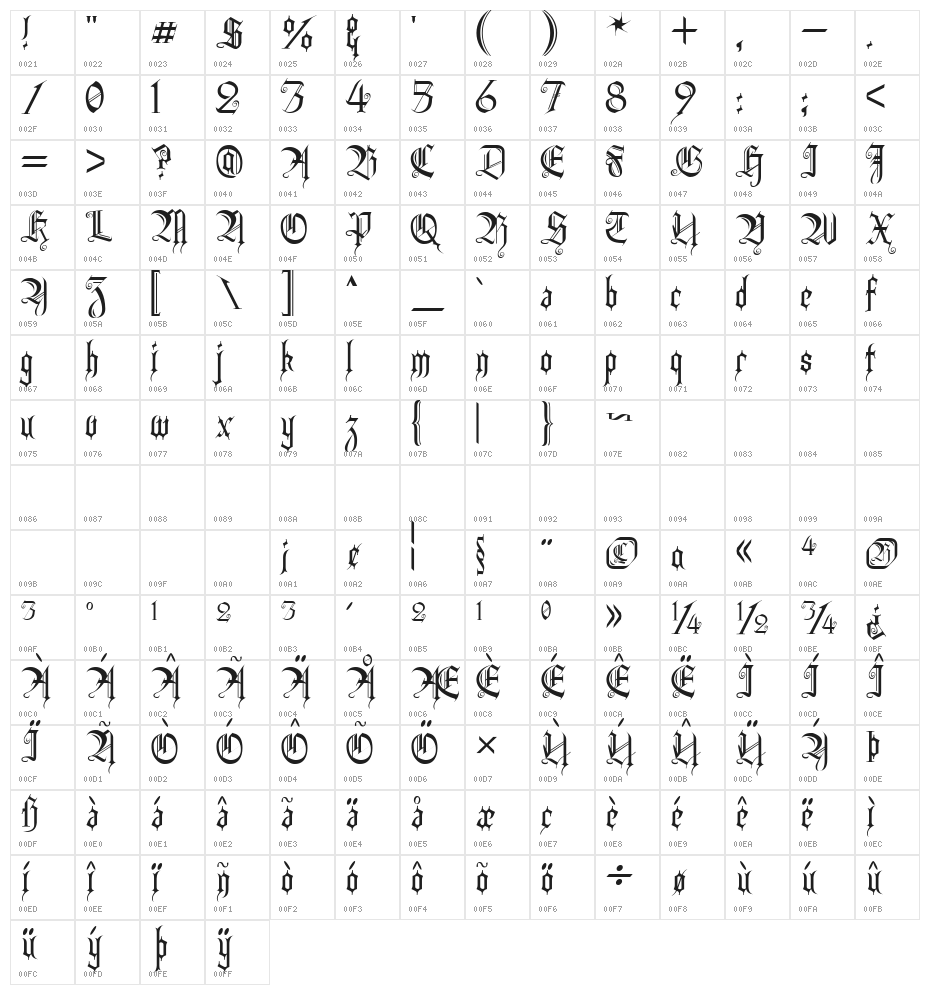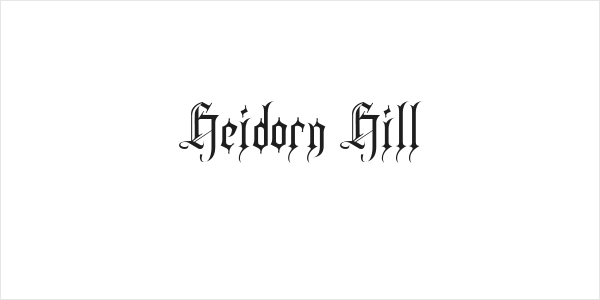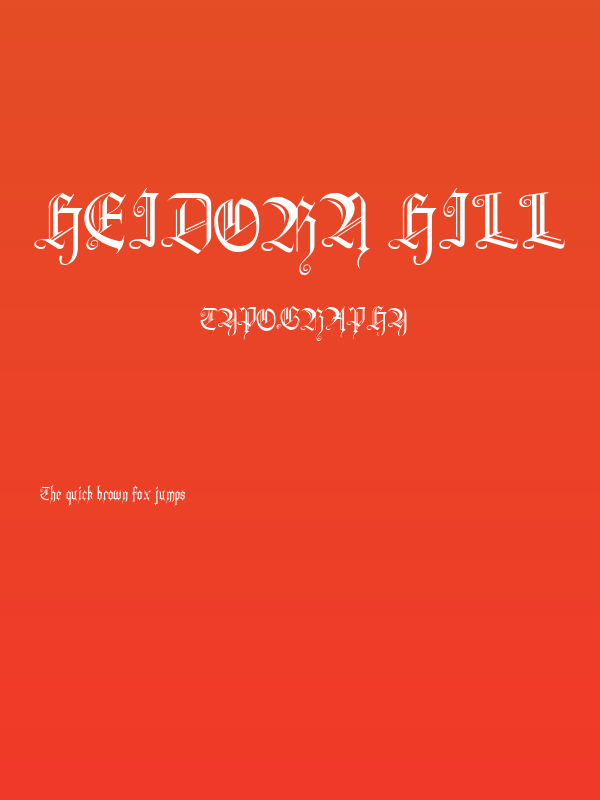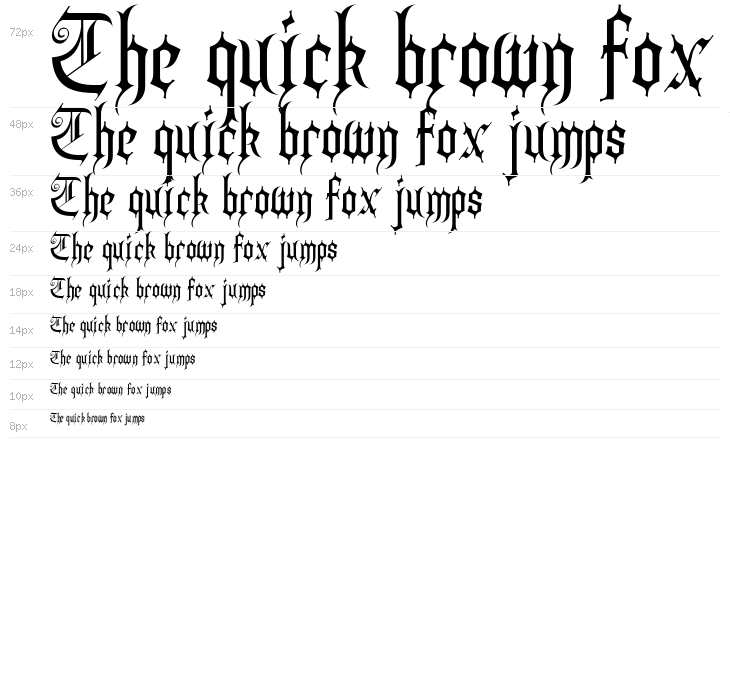
Heidorn Hill Font
Heidorn Hill Description
This font exhibits a striking blackletter style with intricate, ornate details. The uppercase letters are characterized by sharp, angular lines and decorative flourishes, giving them a gothic and medieval appearance. The lowercase letters maintain the same stylistic elements but are slightly more condensed, enhancing readability while preserving the decorative nature. The numerals are uniquely styled, with some featuring additional flourishes that echo the letterforms. Special characters are designed to match the overall aesthetic, with a consistent use of bold strokes and decorative elements. This font is ideal for projects that require a dramatic and historical feel, such as themed events, branding for vintage products, or artistic designs that aim to capture a sense of antiquity.
Use CaseLogos, Headlines, Artistic Designs
Proposed ProjectsIdeal for historical-themed events, vintage branding, artistic designs, and decorative signage.